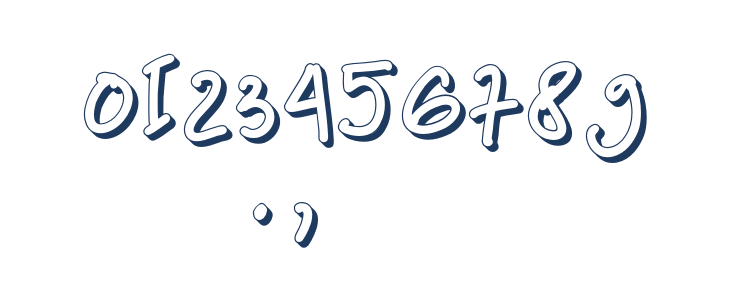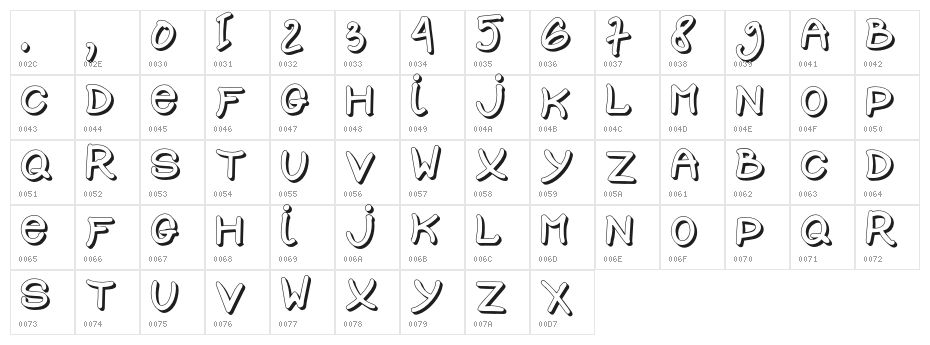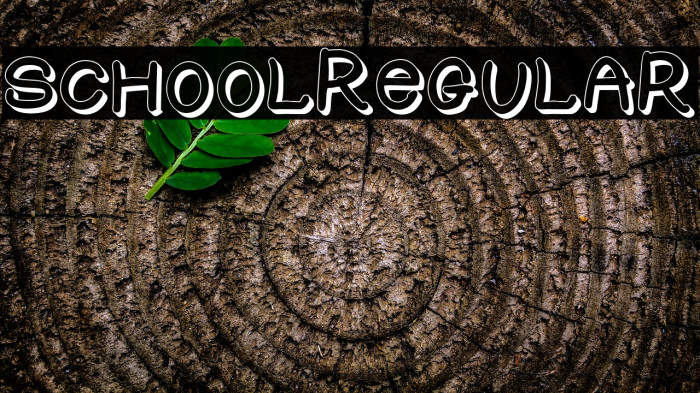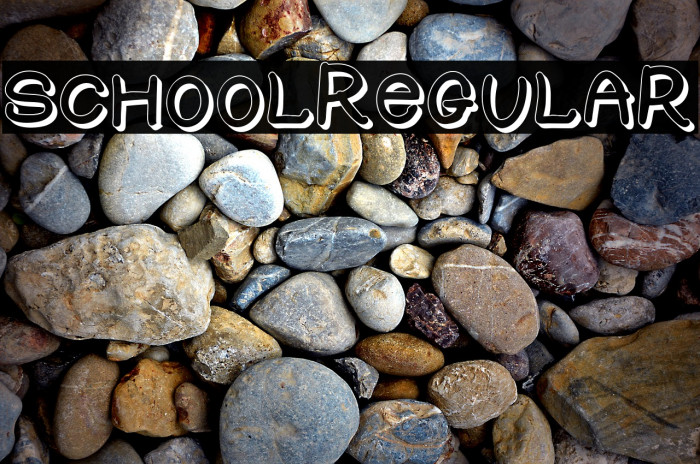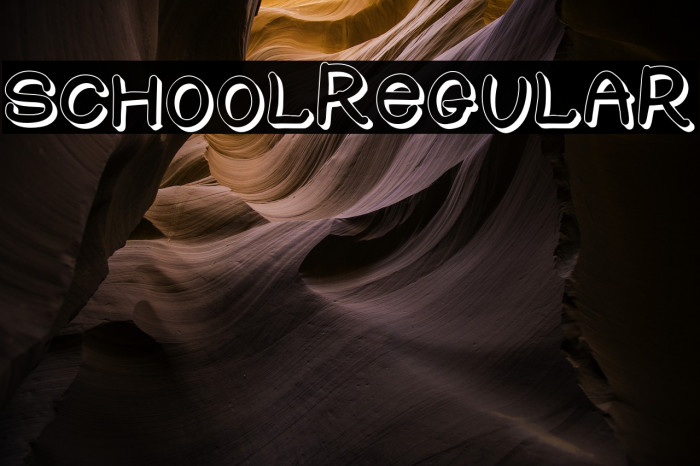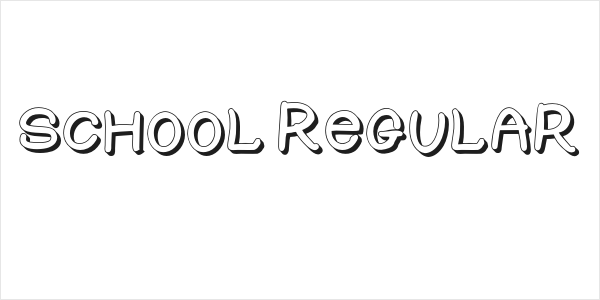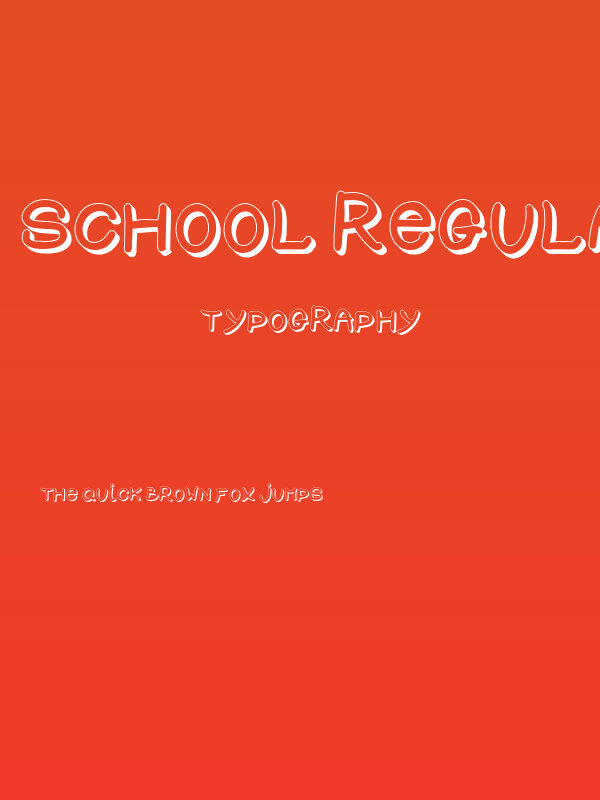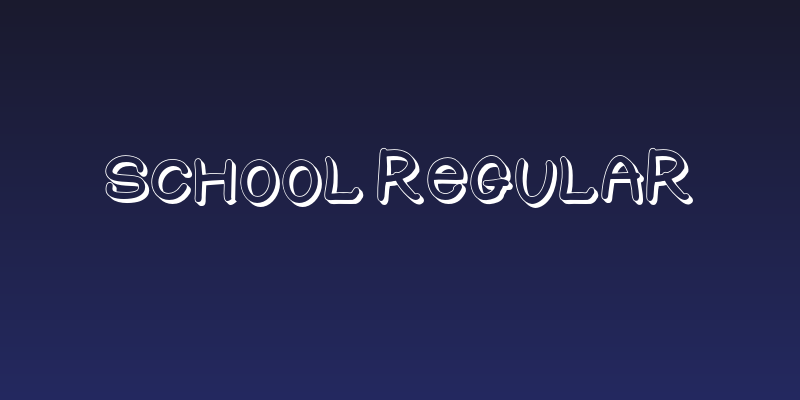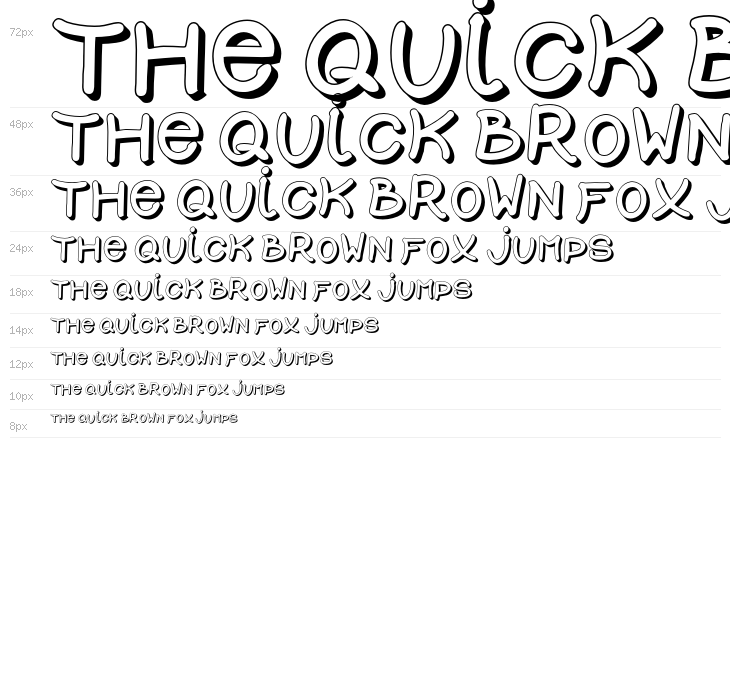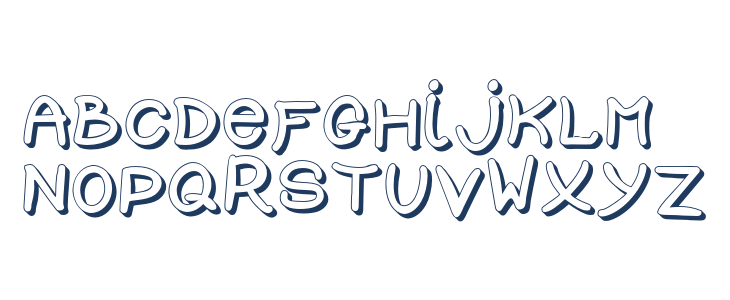
SCHOOL-Regular Font
SCHOOL-Regular Description
This playful and bold font features a hand-drawn, cartoonish style with a thick outline that gives it a three-dimensional appearance. The characters are rounded and slightly irregular, adding a whimsical and informal touch. The uppercase and lowercase letters maintain a consistent style, with the uppercase being slightly larger and more pronounced. Numbers and special characters follow the same design, ensuring a cohesive look across all text. The font's unique style makes it stand out, perfect for projects that require a fun and engaging visual element.
| Overall Style | Playful, Cartoonish |
| Proposed Projects | Ideal for children's books, comic strips, playful branding, and educational materials. |